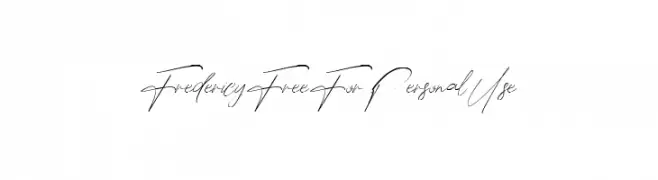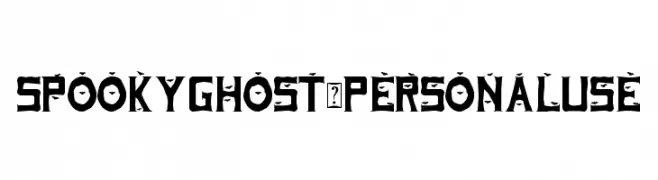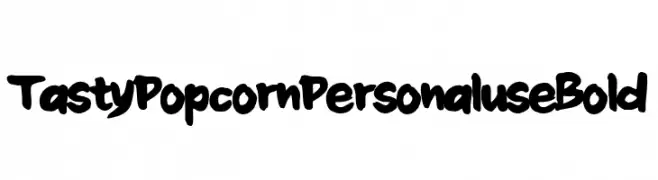
A spooky, ghostly font with jagged, irregular edges and a haunted vibe.
A playful and elegant script font with flowing, cursive letters and varying stroke widths.
A playful, handwritten script font with elegant loops and curves.
A bold, playful font with a hand-drawn, whimsical style.
An elegant, flowing script font with high contrast and interconnected characters.
A bold, expressive handwritten font with flowing, interconnected strokes.
A cursive, handwritten-style font with elegant, flowing characters.
A cursive, handwritten font with elegant, flowing strokes.
A dynamic handwritten font with fluid, expressive strokes.
A modern, handwritten font with elegant, flowing strokes and dynamic contrast.